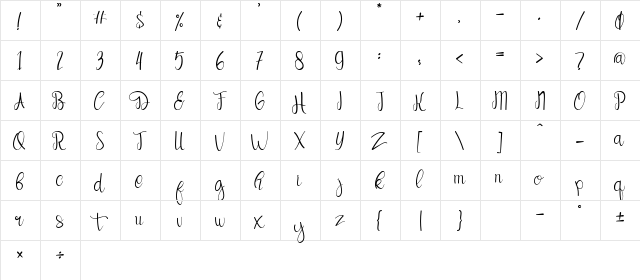
Beautype Demo Regular
| Designer | Omotu 2018 |
Design Context for Beautype Demo Typeface
Beautype Demo is a composed and adaptable typeface that performs quietly and consistently across a wide range of design contexts.